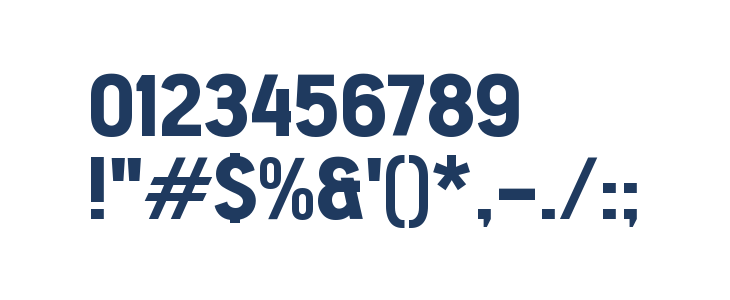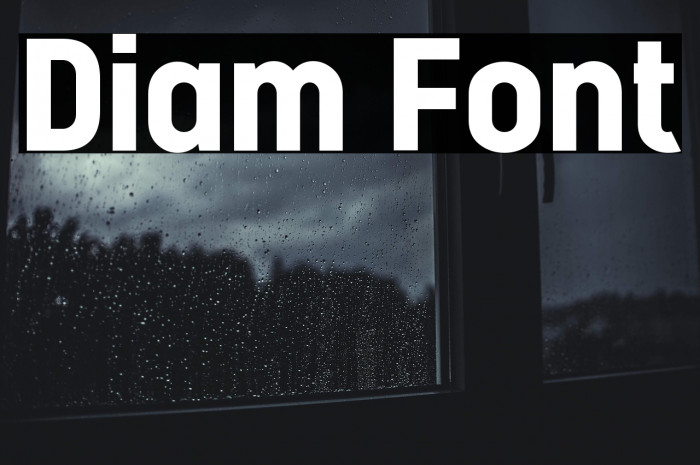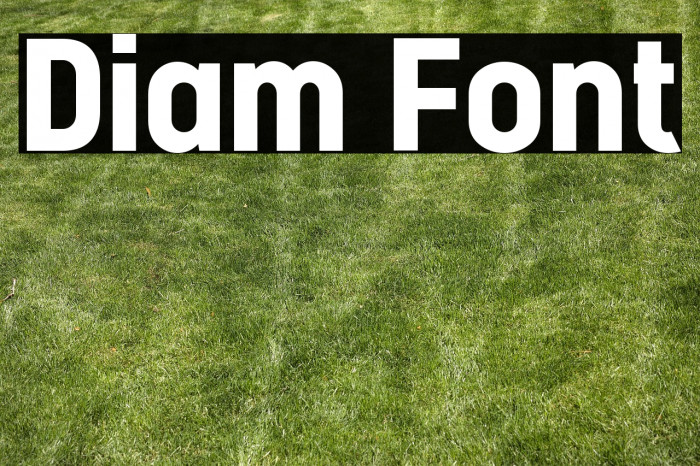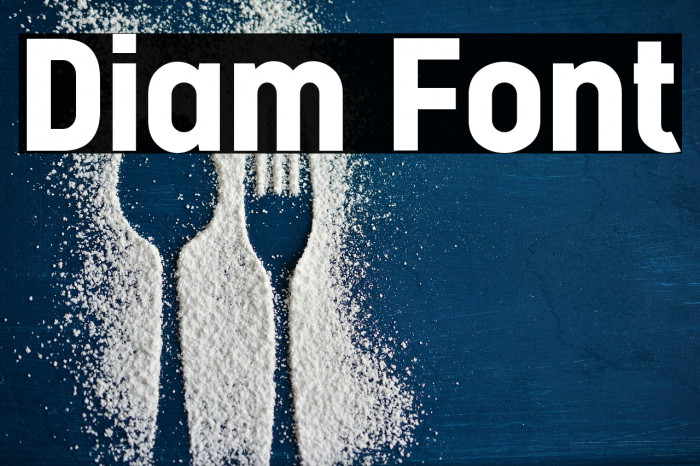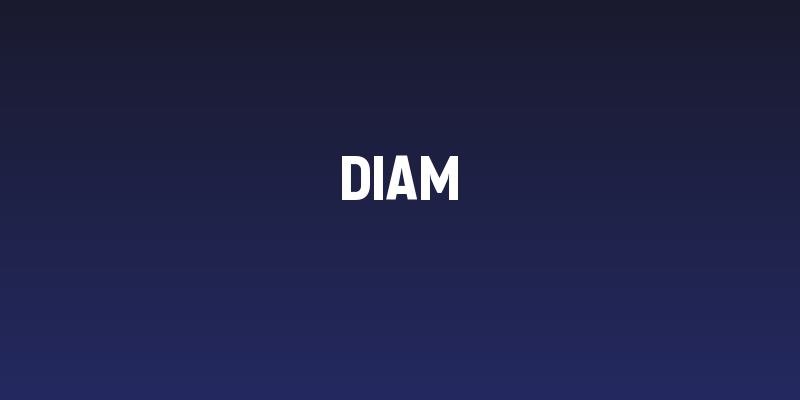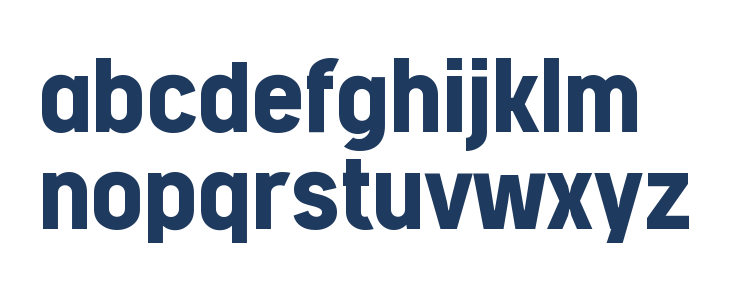
Diam Font
✎ Sans Serif
Diam Description
This font features a bold and modern sans-serif design, characterized by its clean lines and strong presence. The uppercase letters are uniform in height, providing a sense of stability and balance. The lowercase letters maintain a consistent x-height, contributing to readability and a cohesive look. The numerals are robust and easily distinguishable, making them suitable for various applications. Special characters are well-integrated, maintaining the overall aesthetic of the font. The font's simplicity and clarity make it versatile for both digital and print media.
| Use Case | Headlines, Logos, Digital interfaces |
| Proposed Projects | Ideal for branding, advertising, headlines, and digital interfaces. |